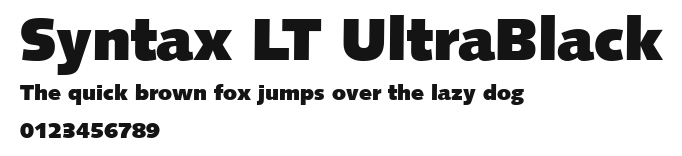
Syntax LT UltraBlack.ttf is a modern, elegant sans-serif font designed for ultimate readability and visual harmony. Perfect for branding, headlines, web design, and print materials.